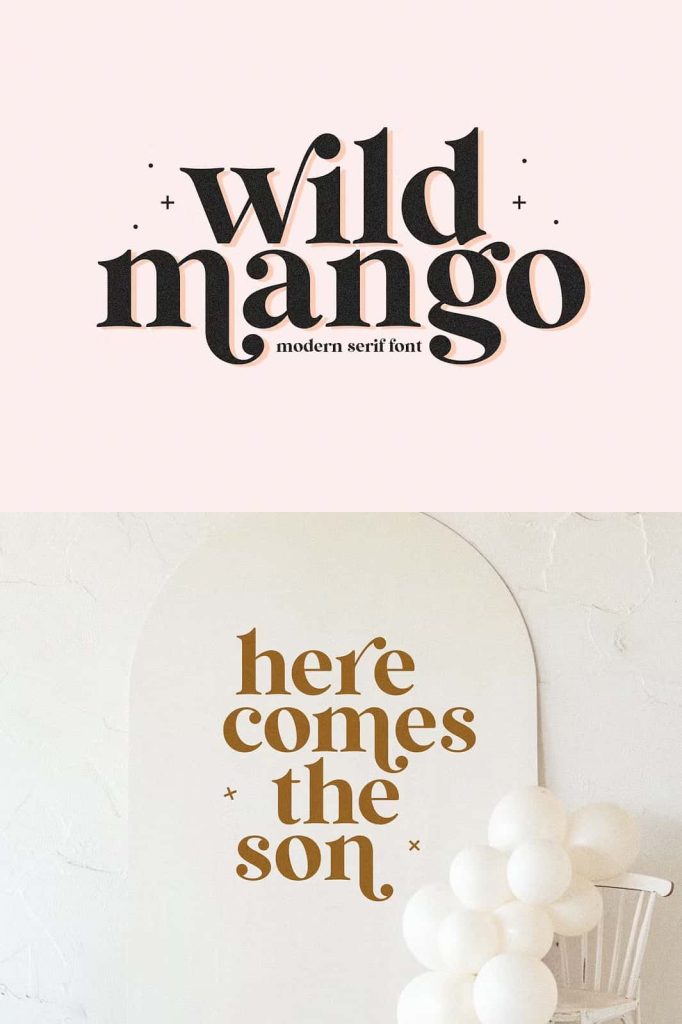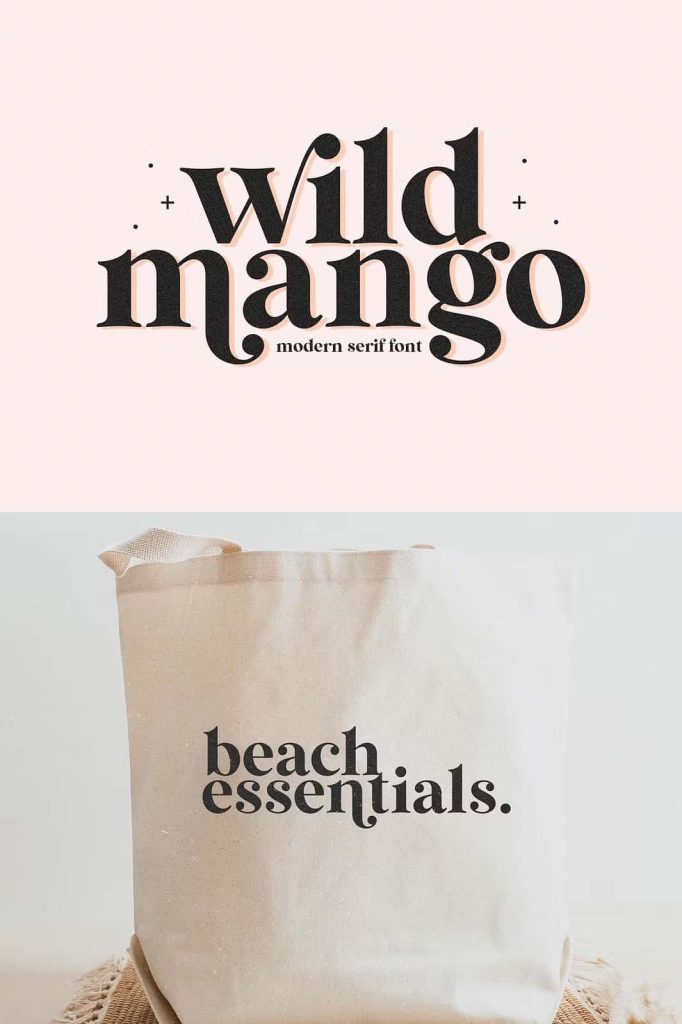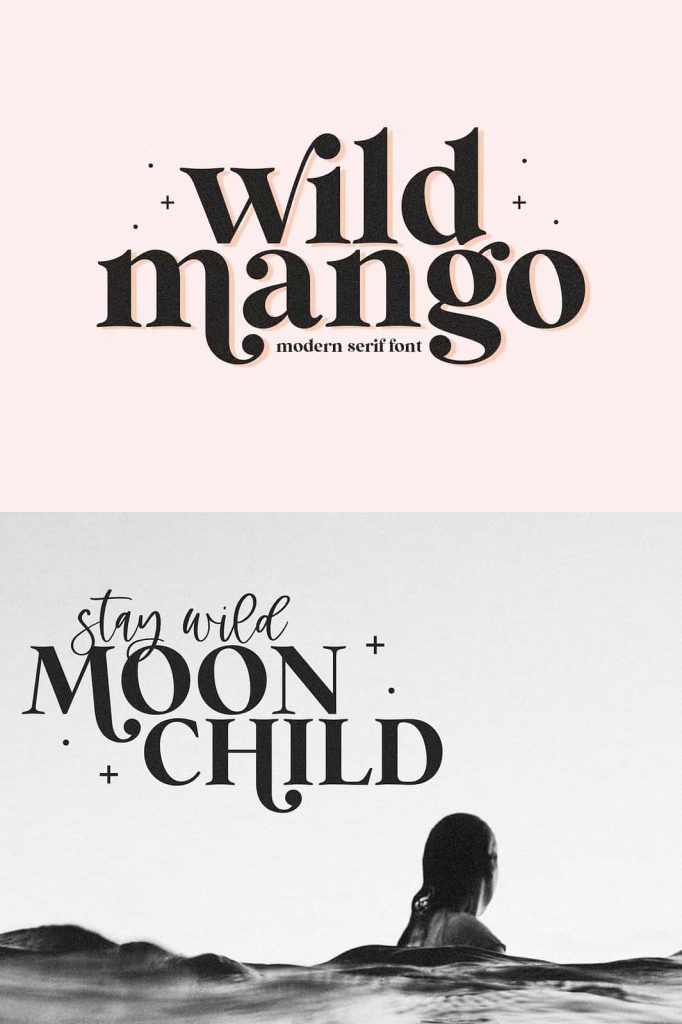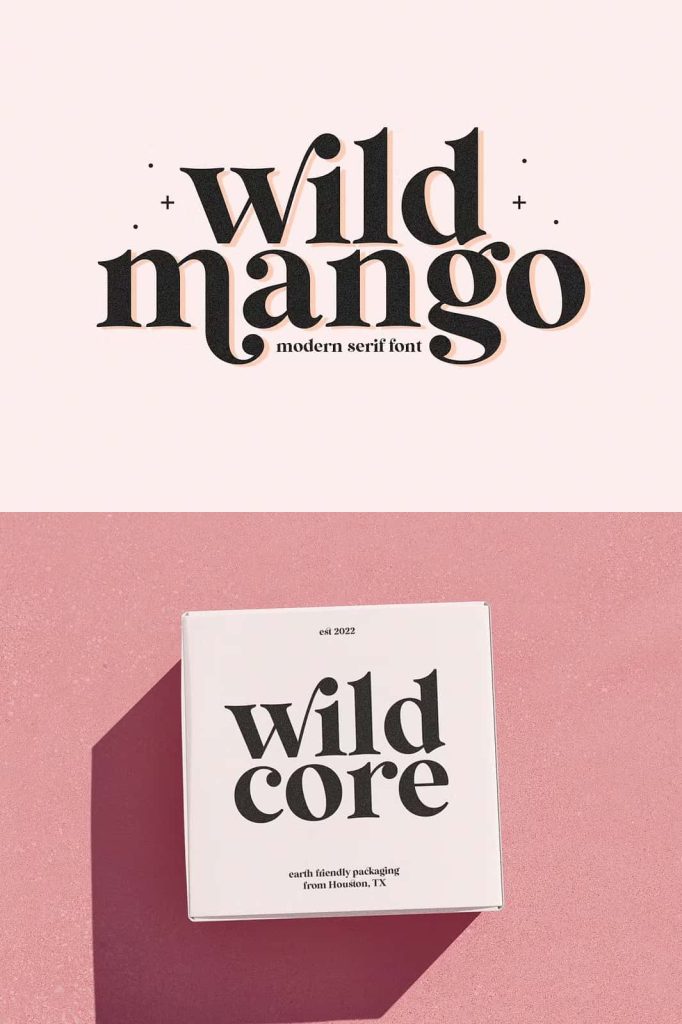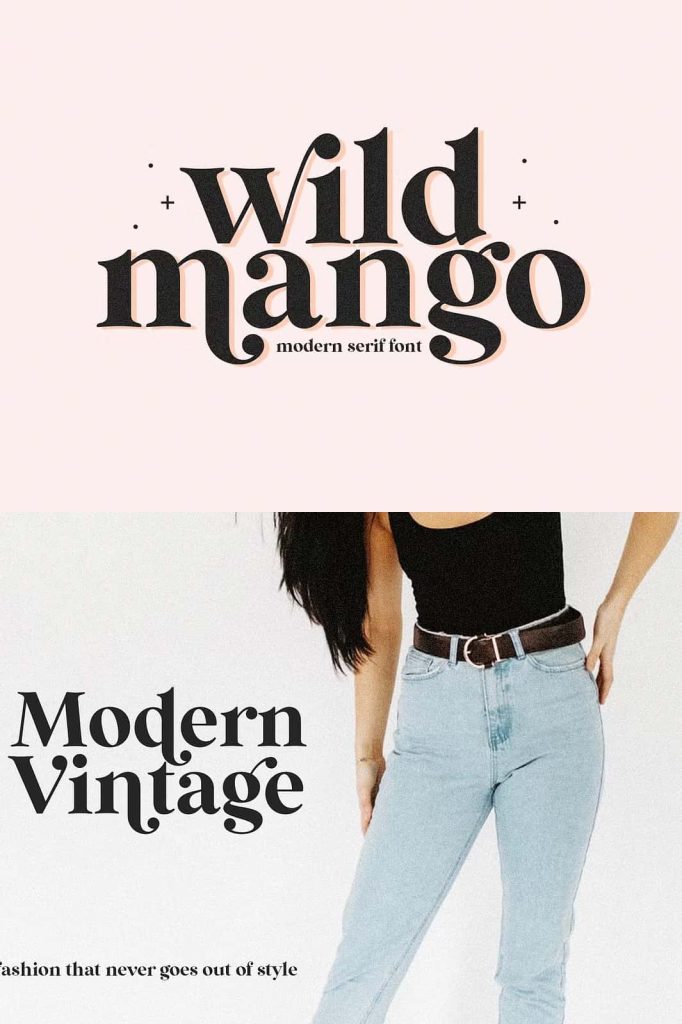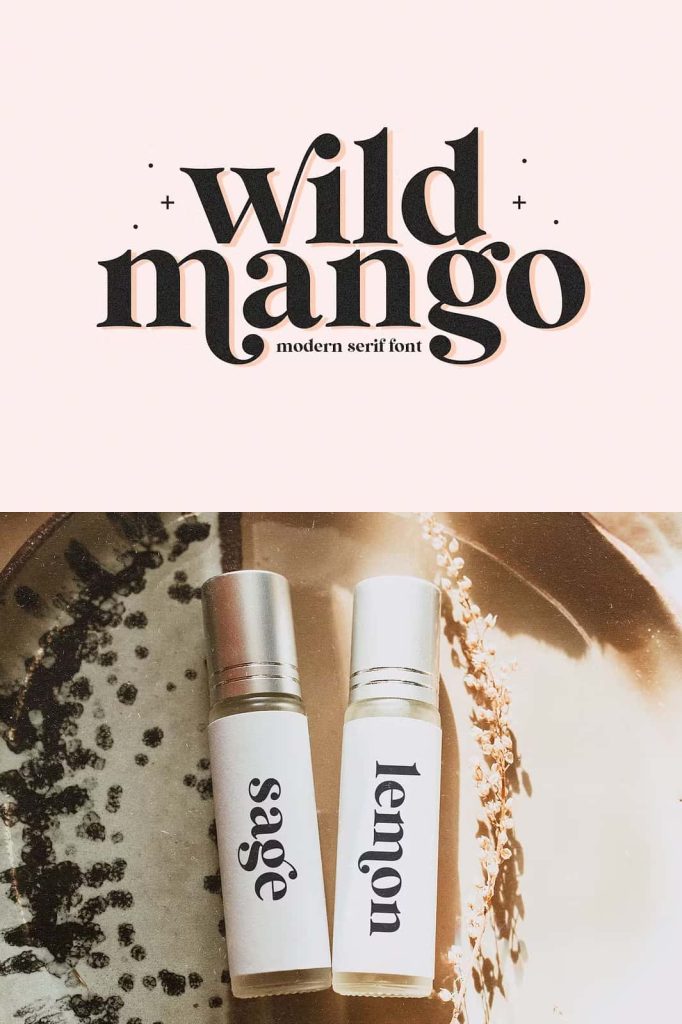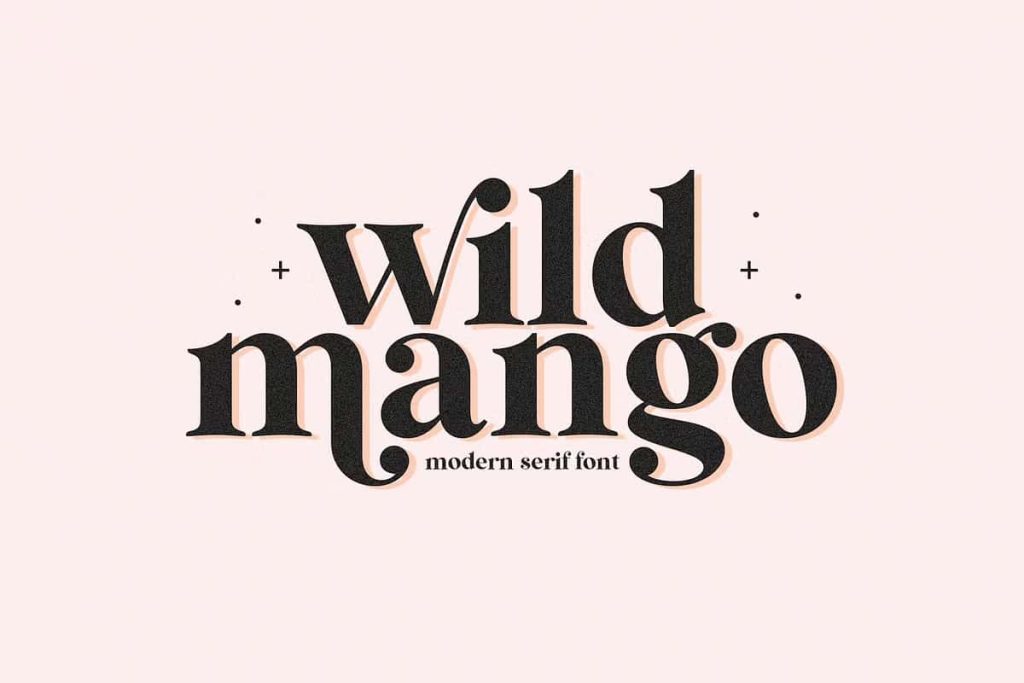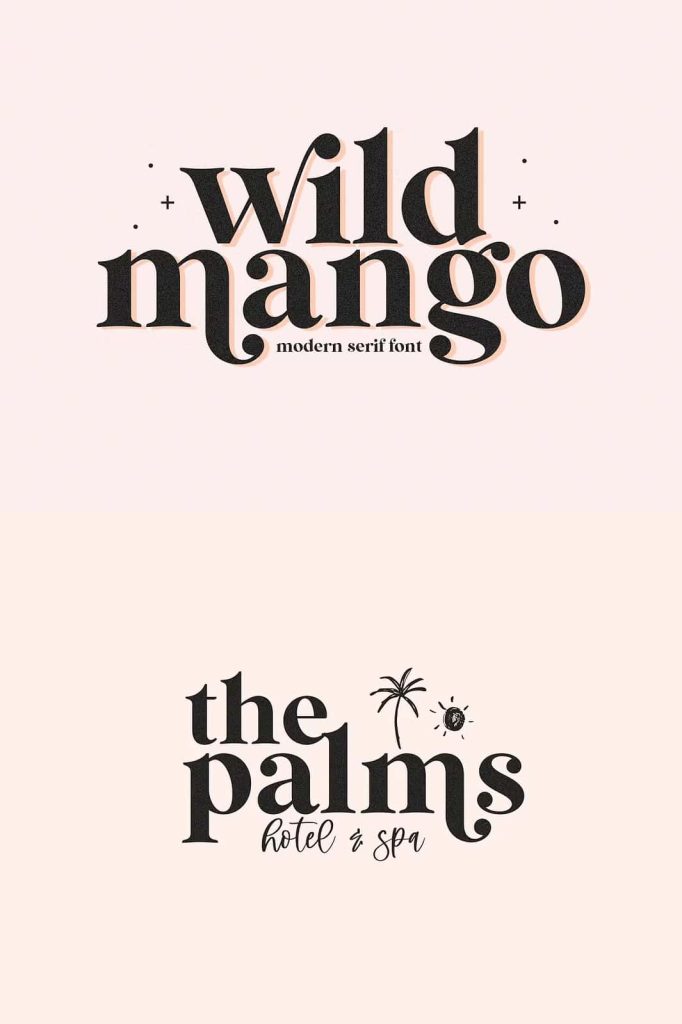
Wild Mango is unique as it can be used for a variety of design styles. It fits in wonderfully for free-spirited, boho designs and also for more classy editorial looks!